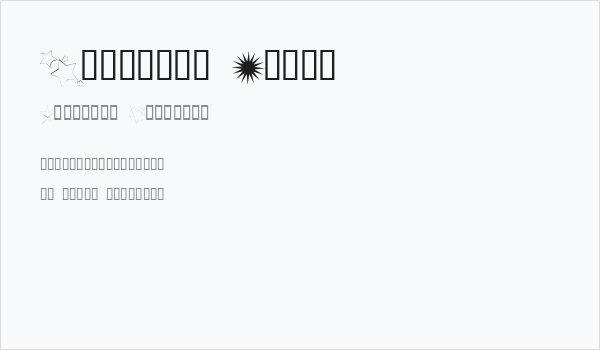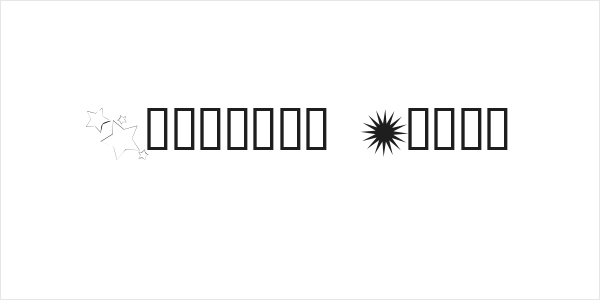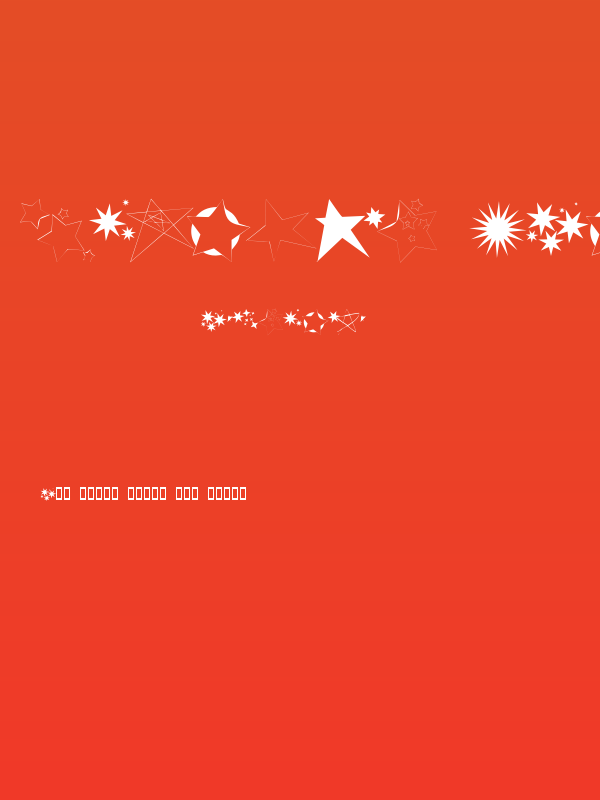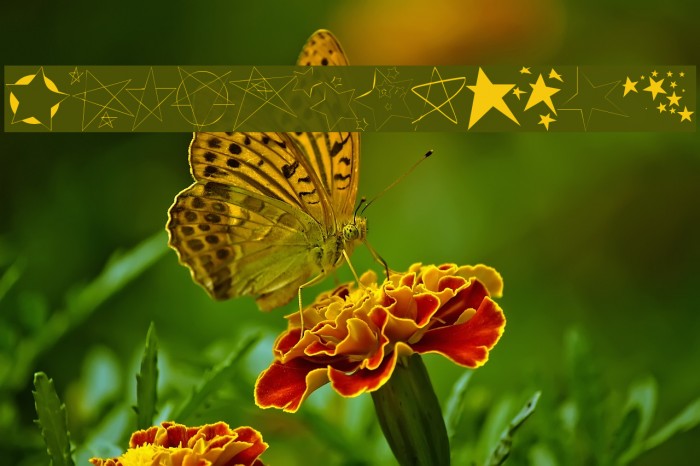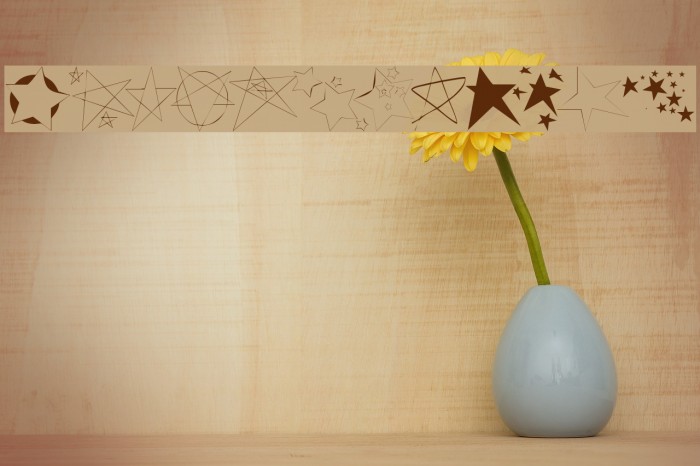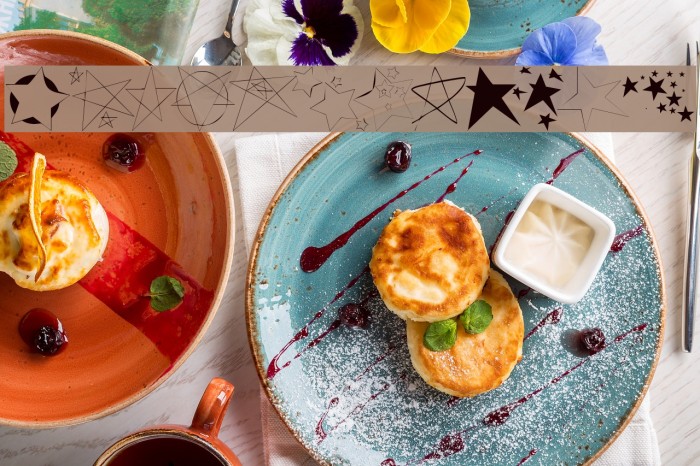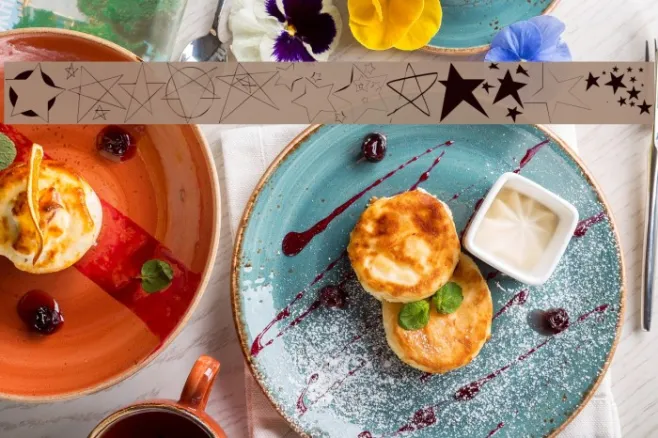
Freaking Stars Font
Freaking Stars Description
A decorative dingbat font featuring a wide variety of star shapes, bursts, and star clusters in different styles, including outlines, filled, and abstract forms. The glyphs are playful and dynamic, with varying stroke weights and arrangements.
| Overall Style | Decorative, Playful, Festive |
| Use Case | Decorative elements, Borders, Icons, Themed graphics |
| Proposed Projects | Party invitations, event posters, scrapbooking, celebratory banners, children's materials, and festive designs. |